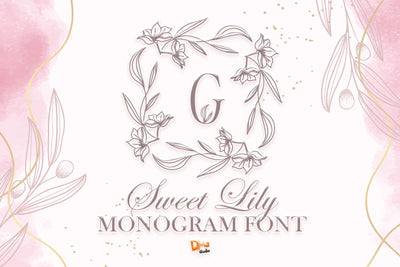
Sweet Lily Monogram
Sweet Lily Monogram – Elegant Floral-Inspired Monogram Font
Sweet Lily Monogram is a graceful and refined font inspired by the soft elegance of lily flowers. Its gentle curves and botanical flourishes make it ideal for monograms, wedding invitations, personal branding, feminine logos, and delicate stationery. Whether you're creating a romantic design or a classy nameplate, this typeface adds an extra layer of charm and sophistication.
Lily-Inspired Elegance: Each letter is crafted with floral motifs and natural grace, reminiscent of blooming lilies.
Perfect for Monogram Design: Designed specifically for creating balanced, decorative initials and logos.
Delicate & Stylish Aesthetic: Ideal for bridal projects, upscale packaging, journaling, and custom gifts.